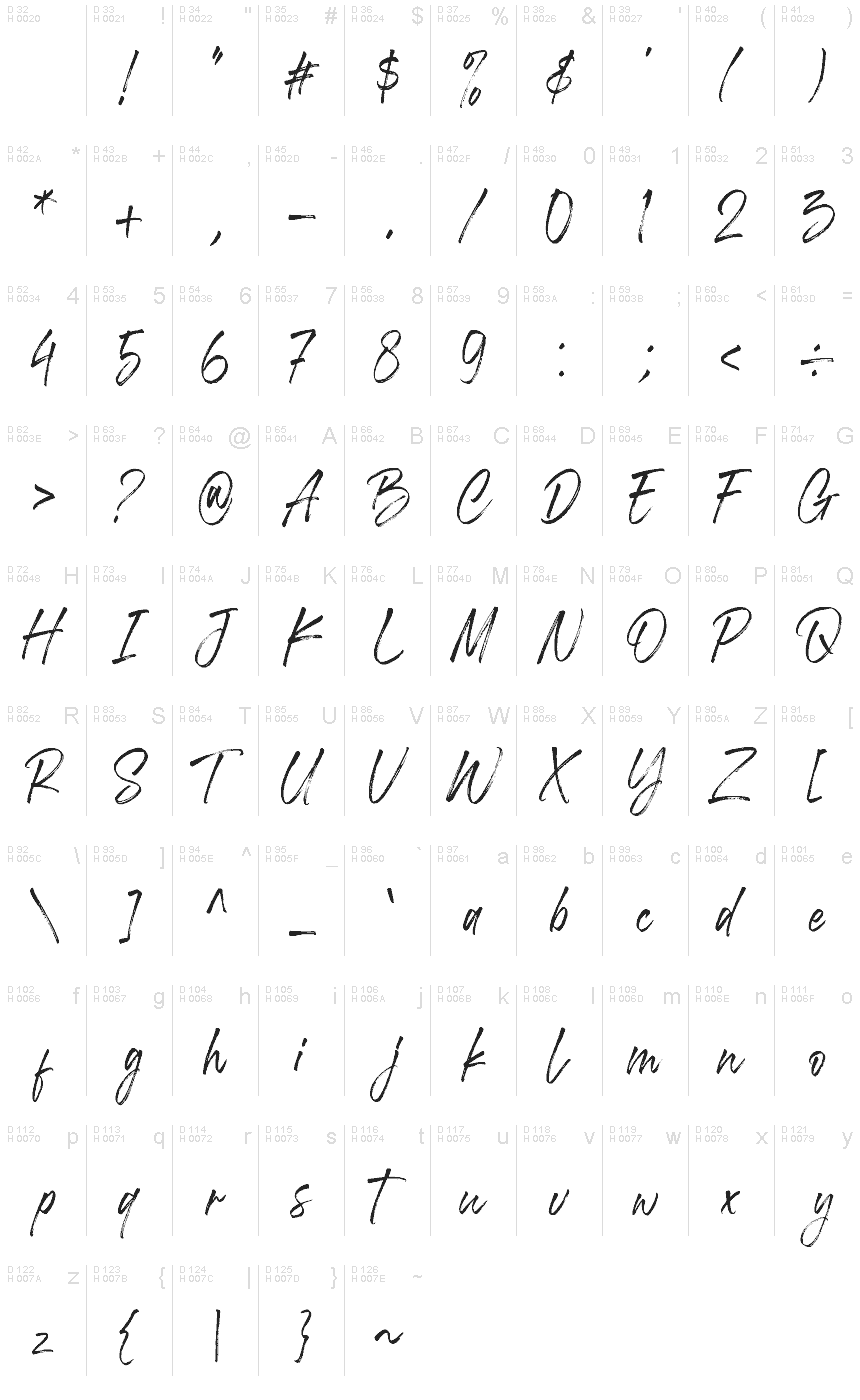
Long Path
Long Path font by Alpaprana Studio is a brush font with an elegant and expressive handwritten feel. This condensed font brings a modern aesthetic and artistic flair to any design, making it versatile for various applications. Its flowing, stylish characters convey sophistication and creativity, capturing attention effortlessly.